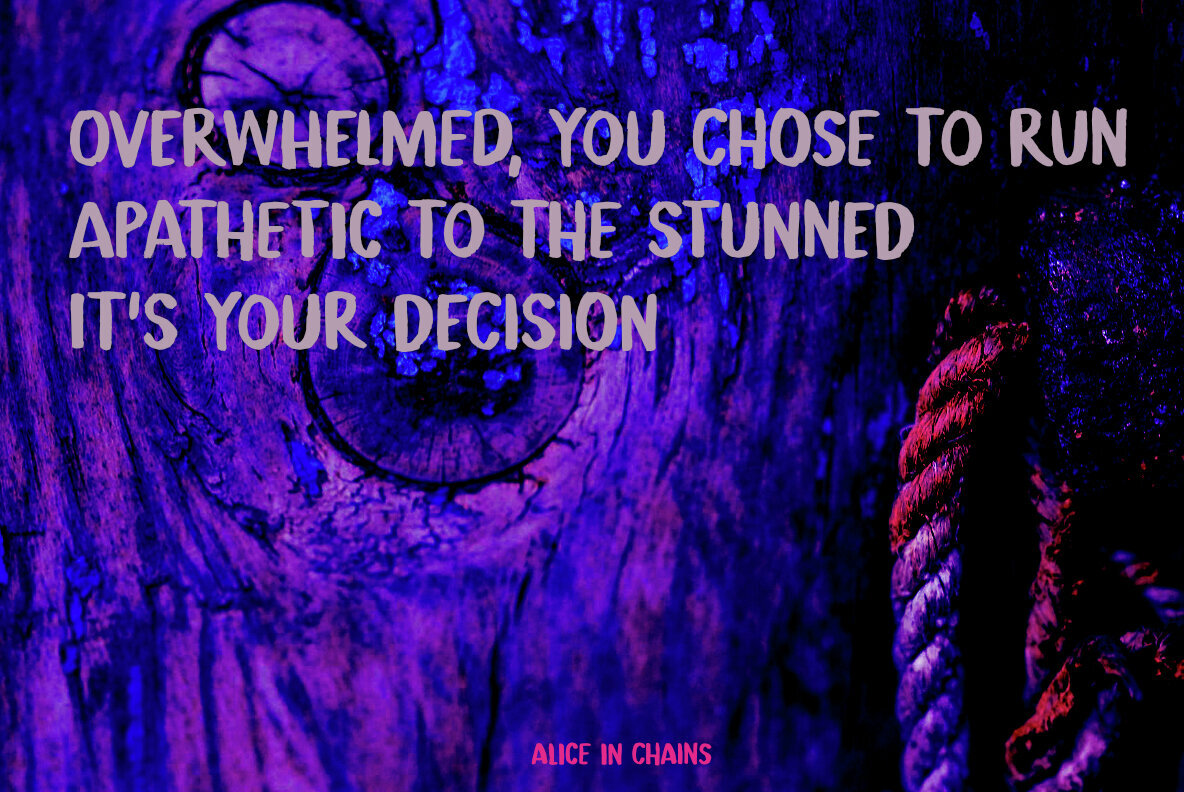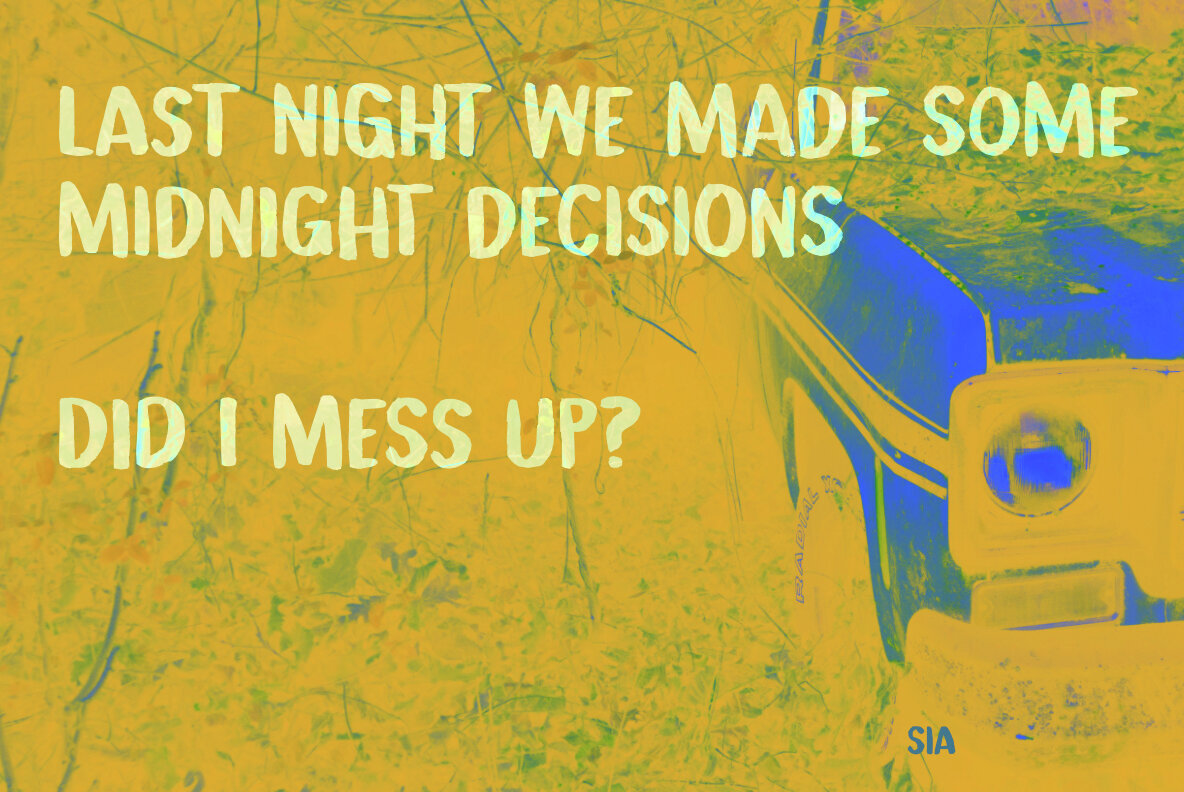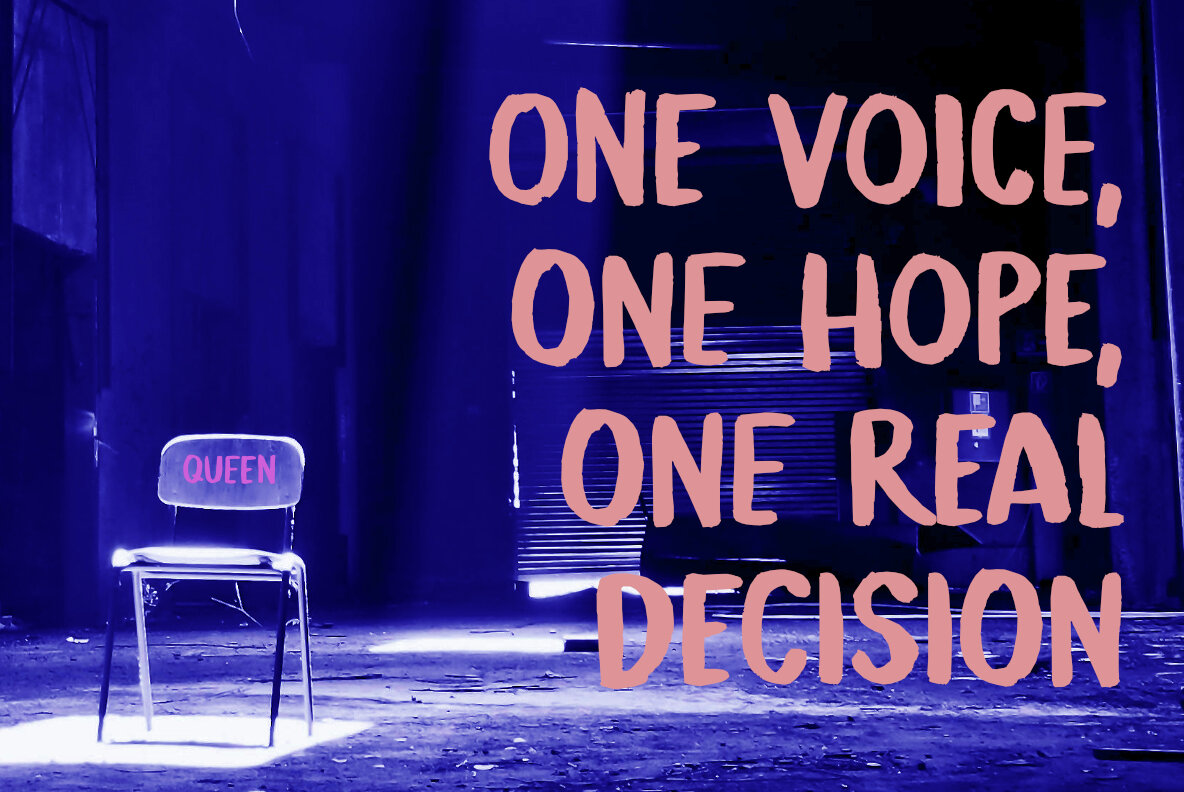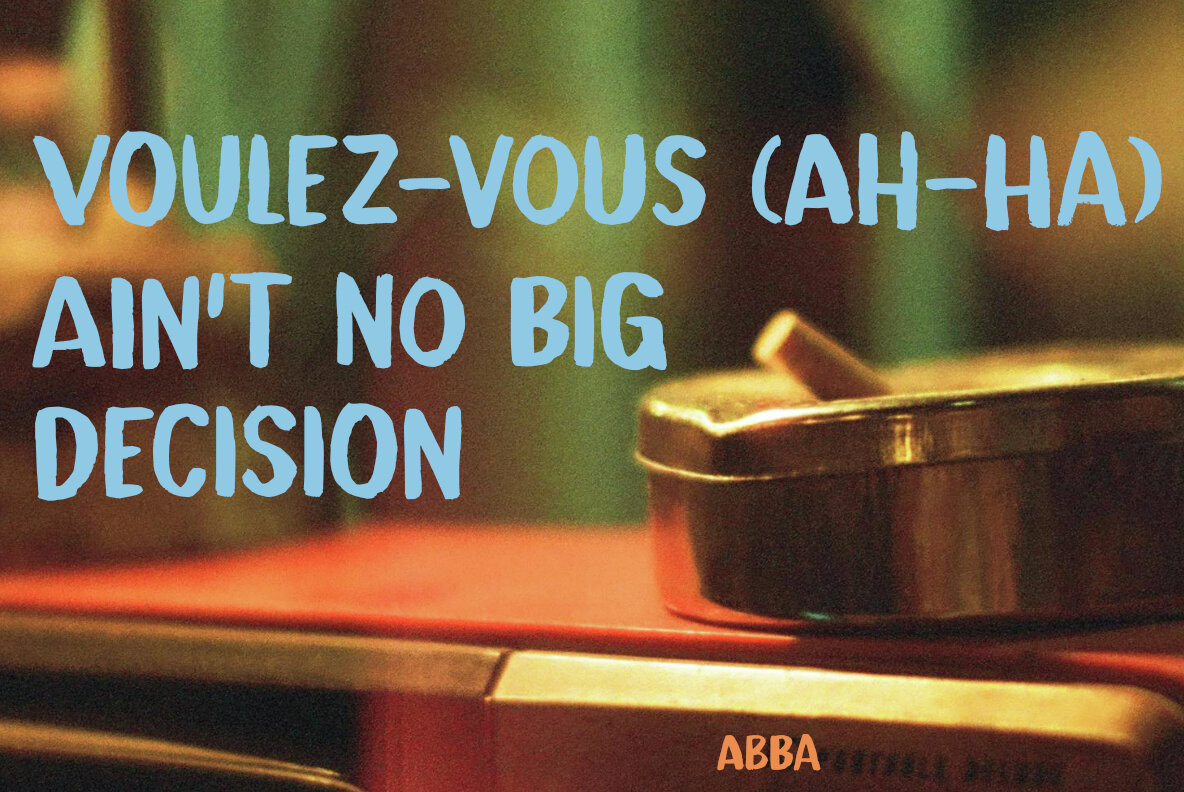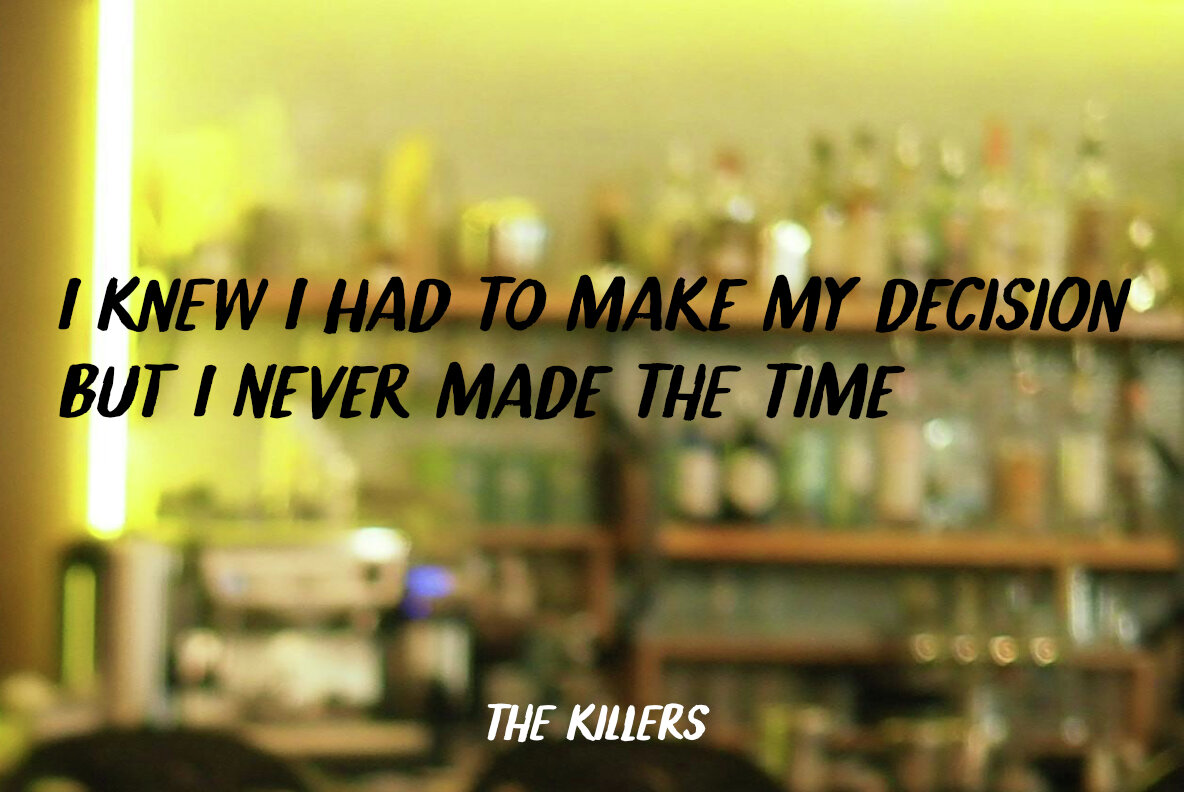
Rash Decision is a captivating handmade font that reflects a unique blend of artistry and functionality. Crafted with Japanese horse hair brushes and Chinese ink, this font showcases organic, expressive strokes that bring a personal touch to any design project.
Designed to accommodate a wide range of projects, Rash Decision offers extensive language support, ensuring versatility and global use. The font also includes a set of alternates for lowercase glyphs, allowing for greater design flexibility and creativity. Ideal for adding a personalized and artistic flair, this font is perfect for graphic and digital designers looking to make a distinctive impression.